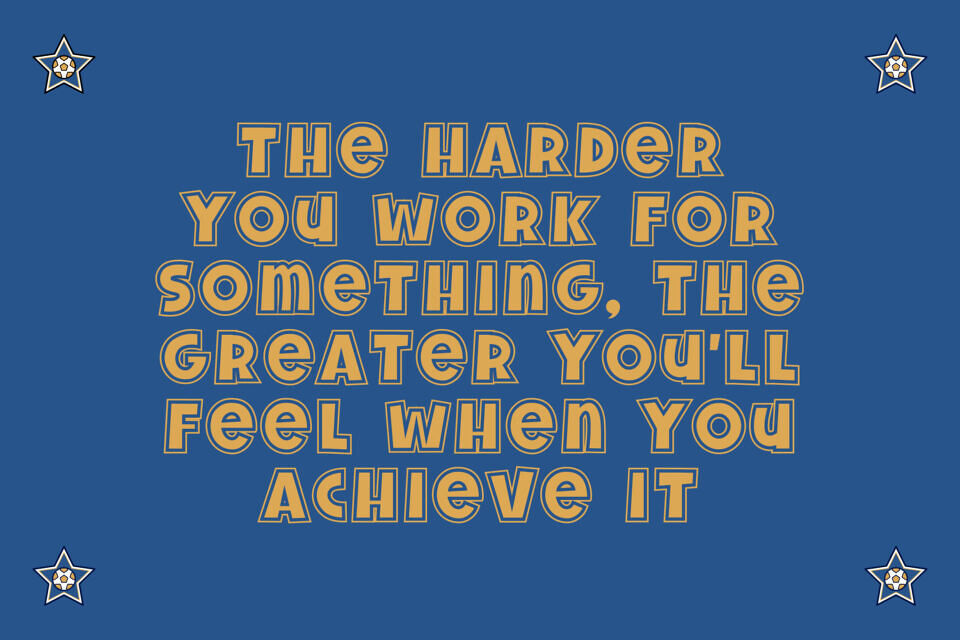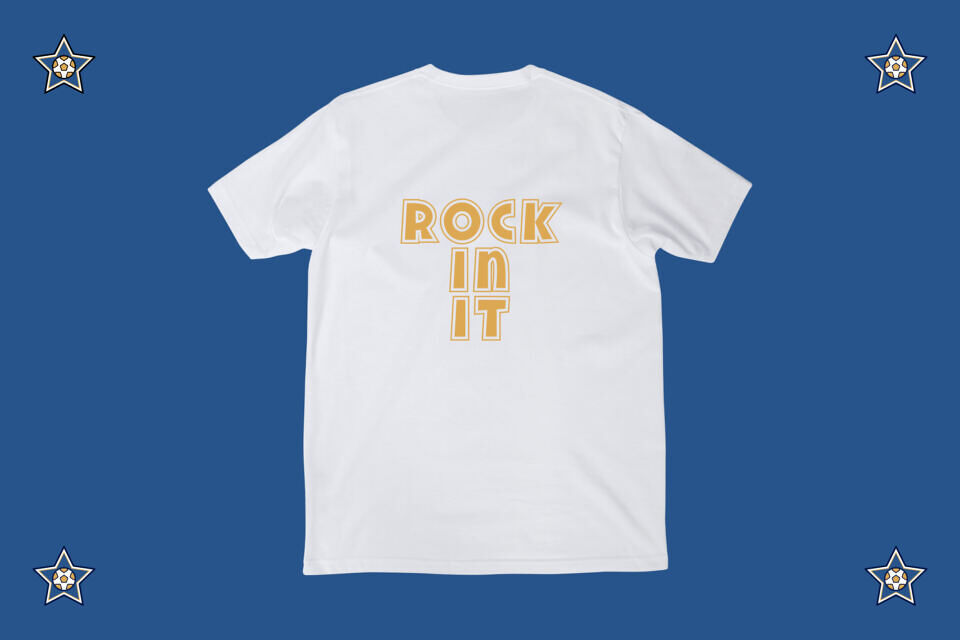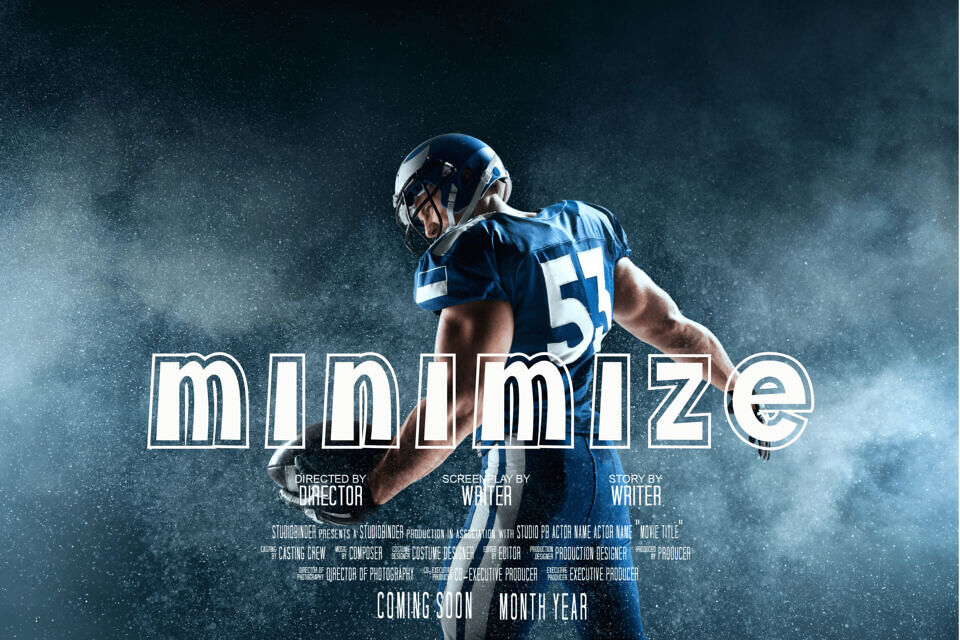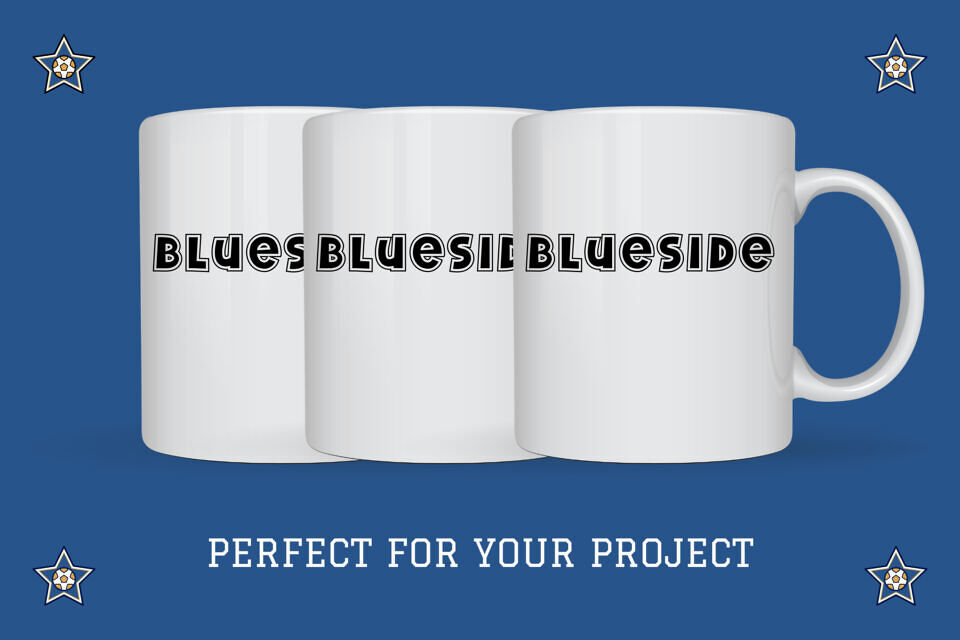
Handwriting Varsity Font
Handwriting Varsity is a fun and energetic handwritten take on the classic varsity font style. Combining bold letterforms with a casual, sketch-like feel, this font is perfect for school spirit designs, team logos, sports-themed graphics, yearbooks, and youth apparel.
Its sporty attitude meets handwritten charm, making it ideal for projects that need both personality and punch.